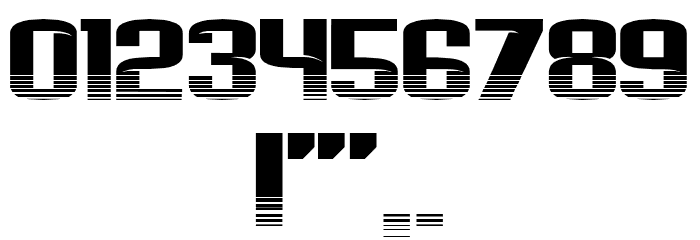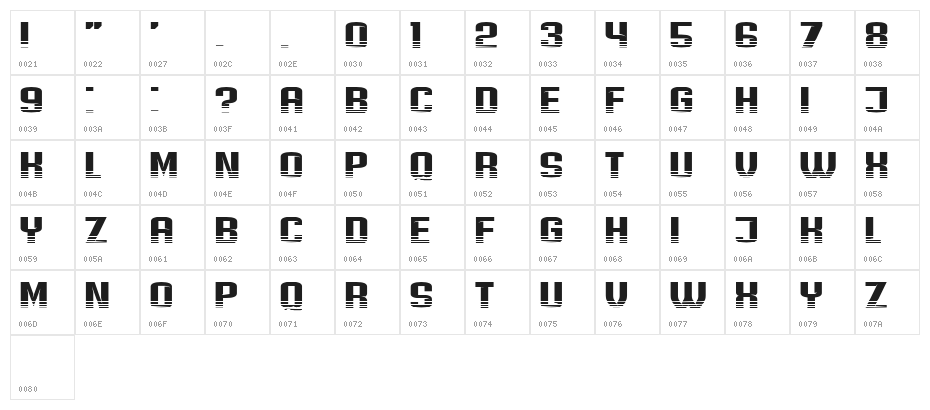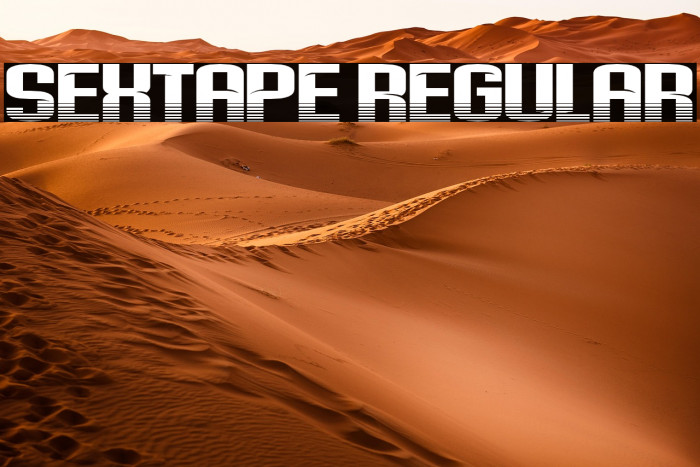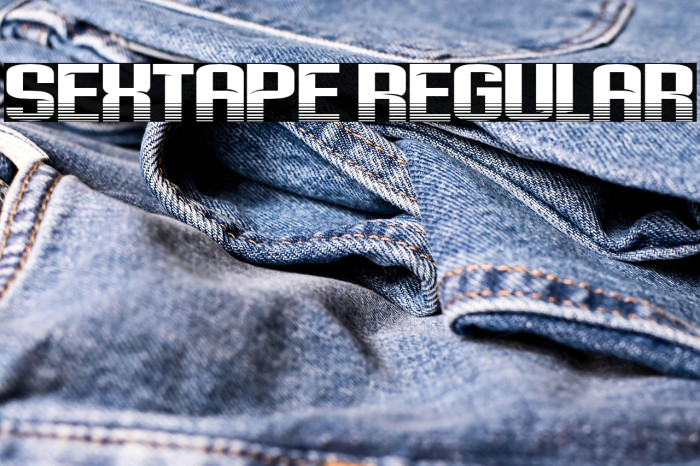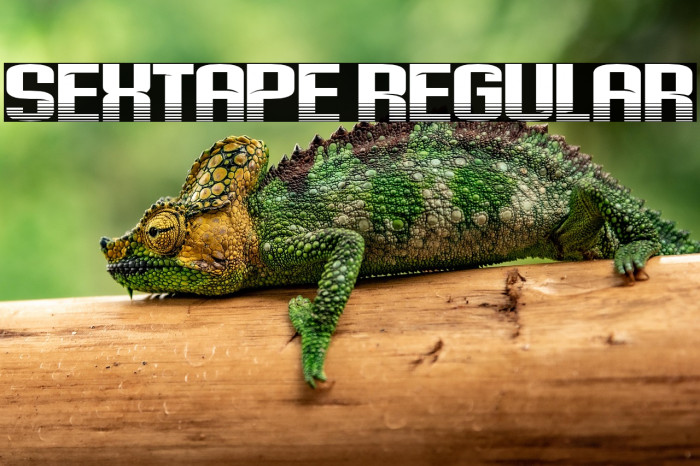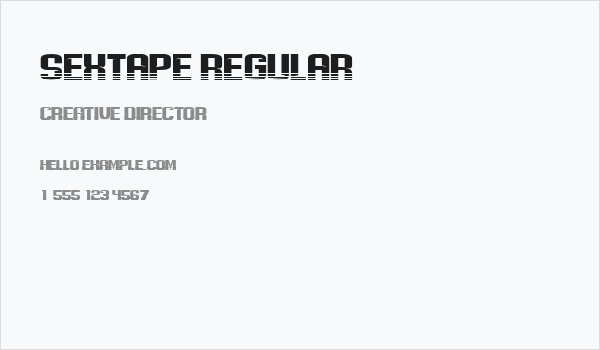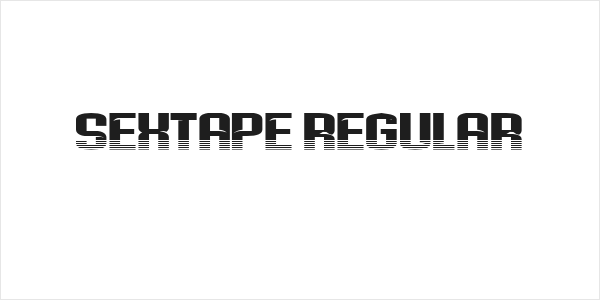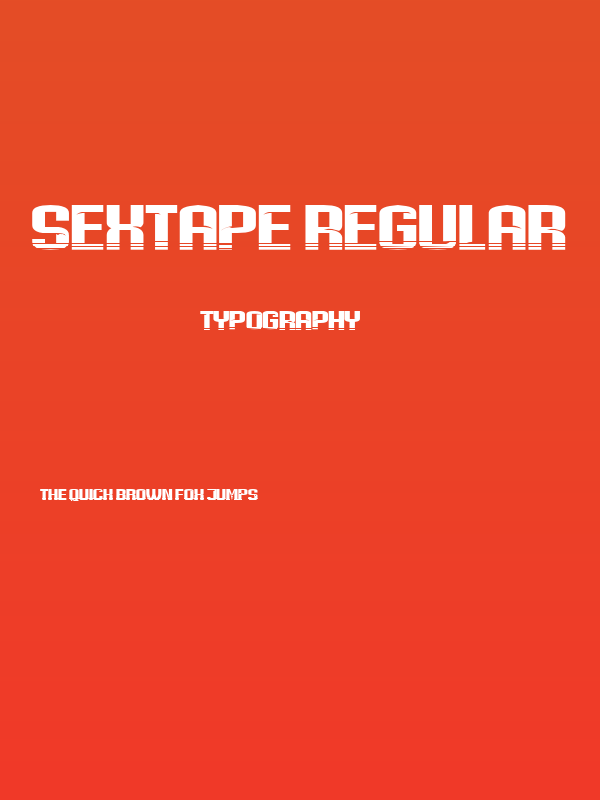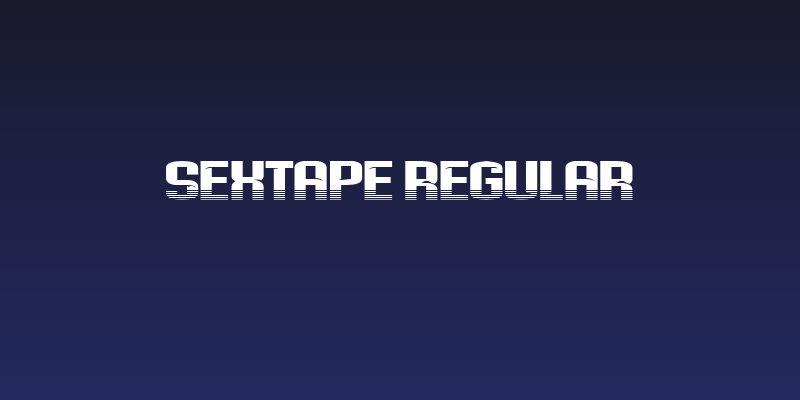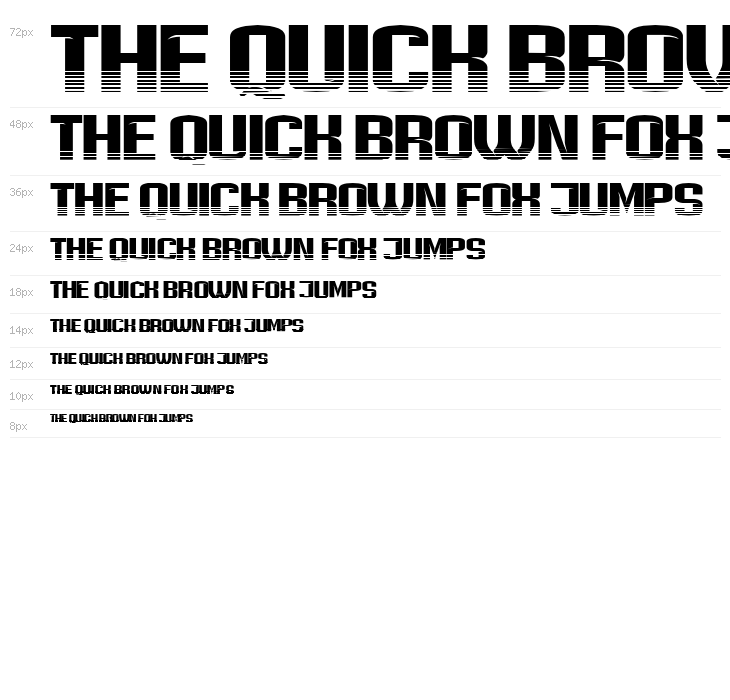
Sextape Regular Font
Sextape Regular Description
This font features a bold and striking design with a unique gradient effect that gives the impression of movement or speed. The characters are wide and have a strong presence, making them ideal for attention-grabbing headlines or display purposes. The gradient effect is achieved through horizontal lines that decrease in thickness from top to bottom, creating a dynamic visual impact. The overall style is modern and futuristic, with a touch of digital aesthetics. The font maintains uniformity across uppercase, lowercase, and numerical characters, ensuring consistency in design.
| Proposed Projects | This font is perfect for projects that require a modern and dynamic look, such as tech-related branding, sports event posters, or futuristic-themed designs. |